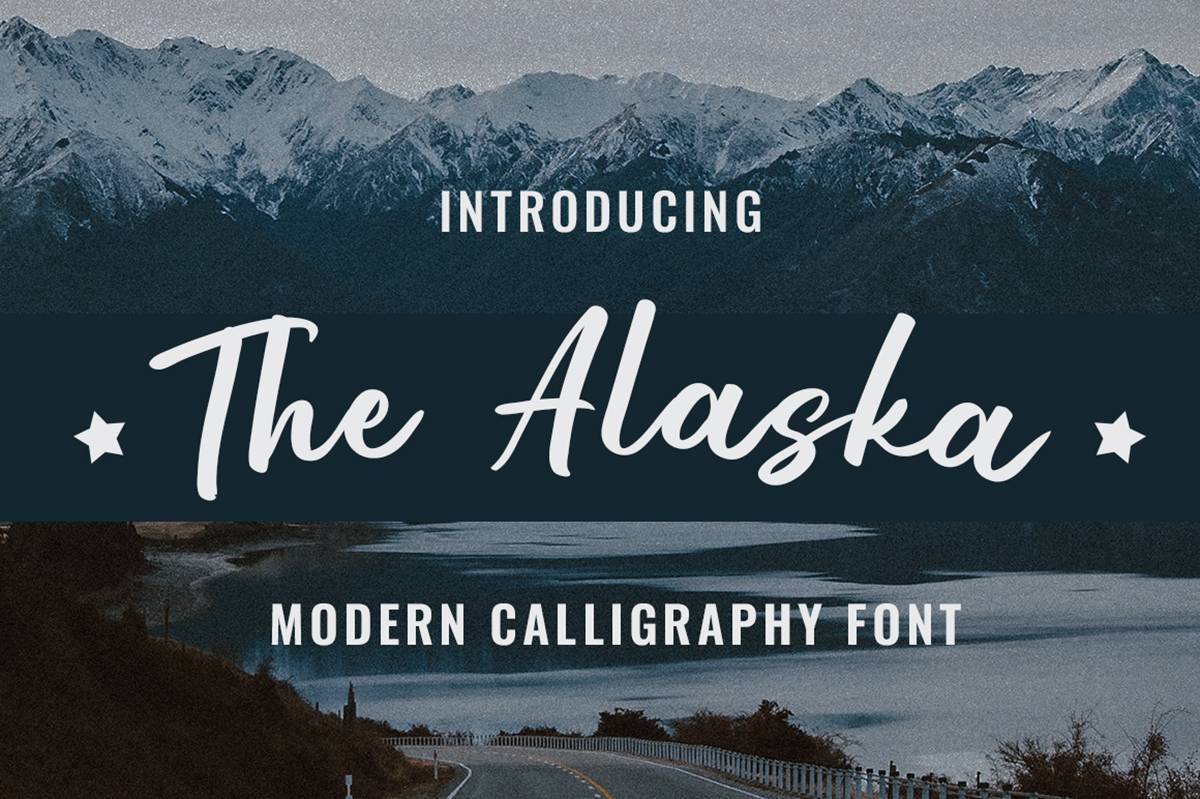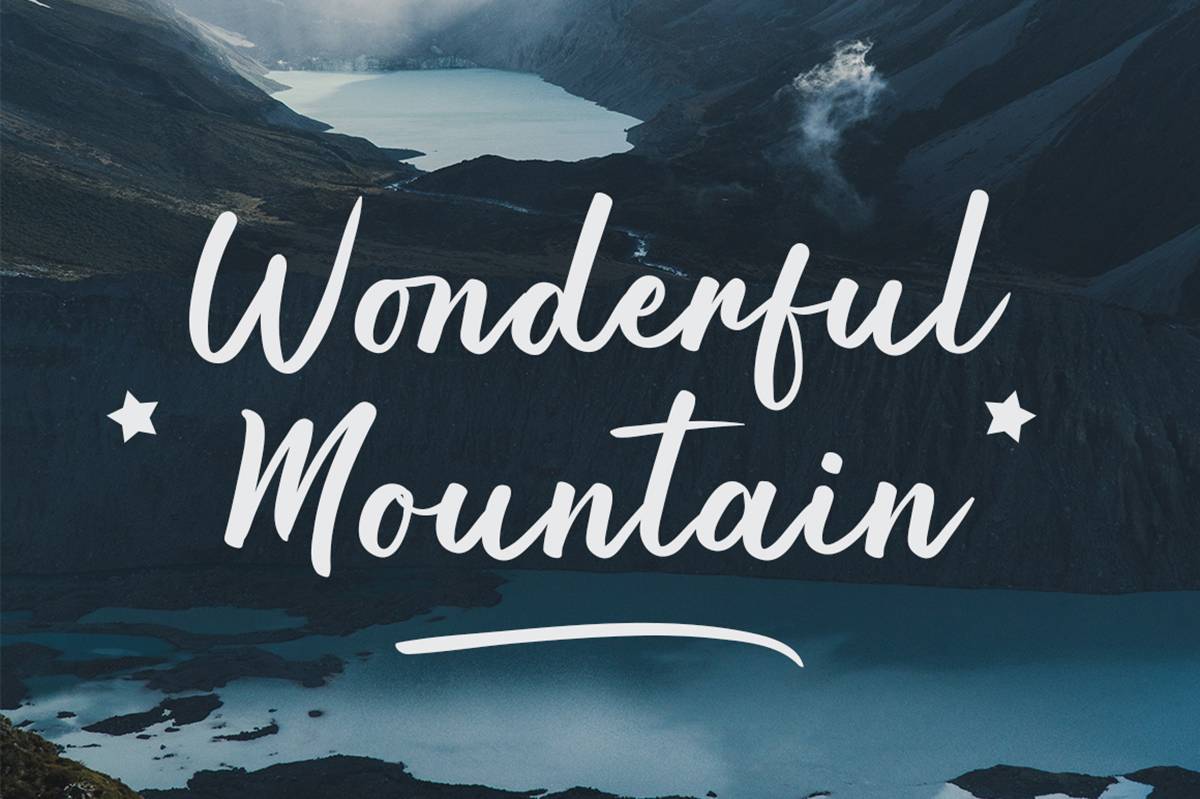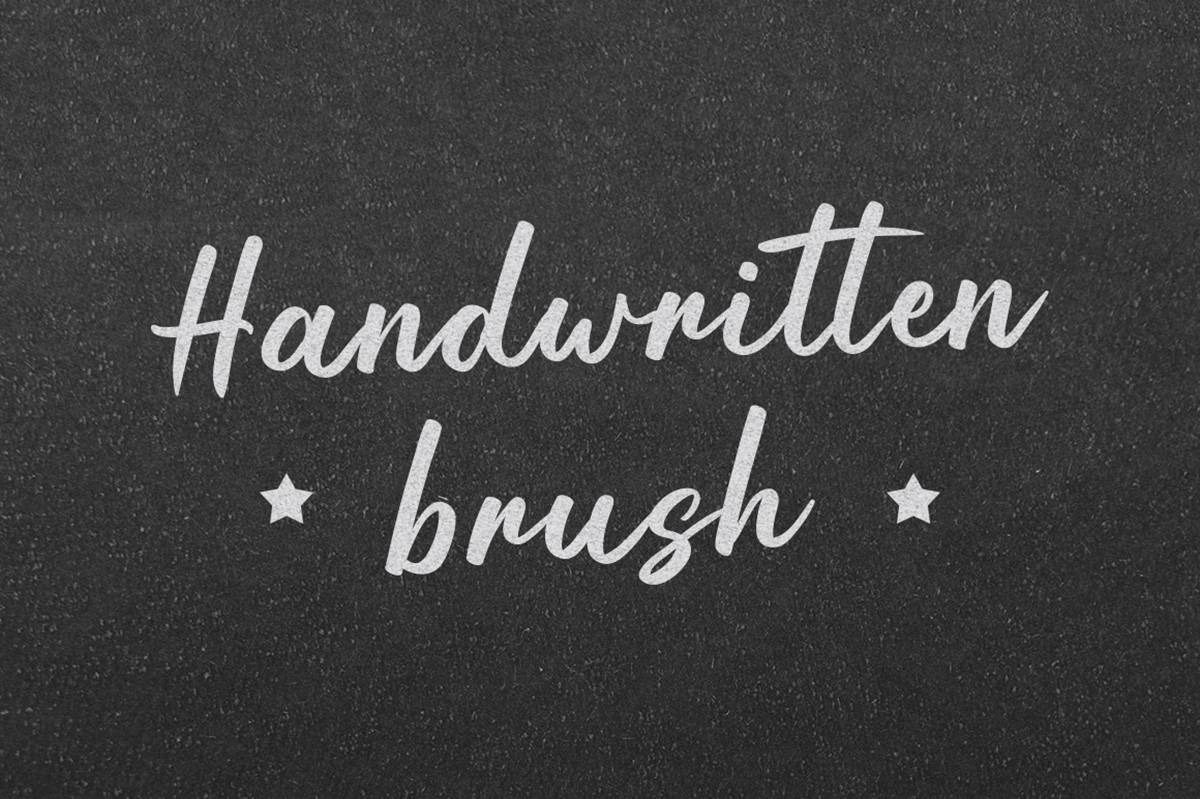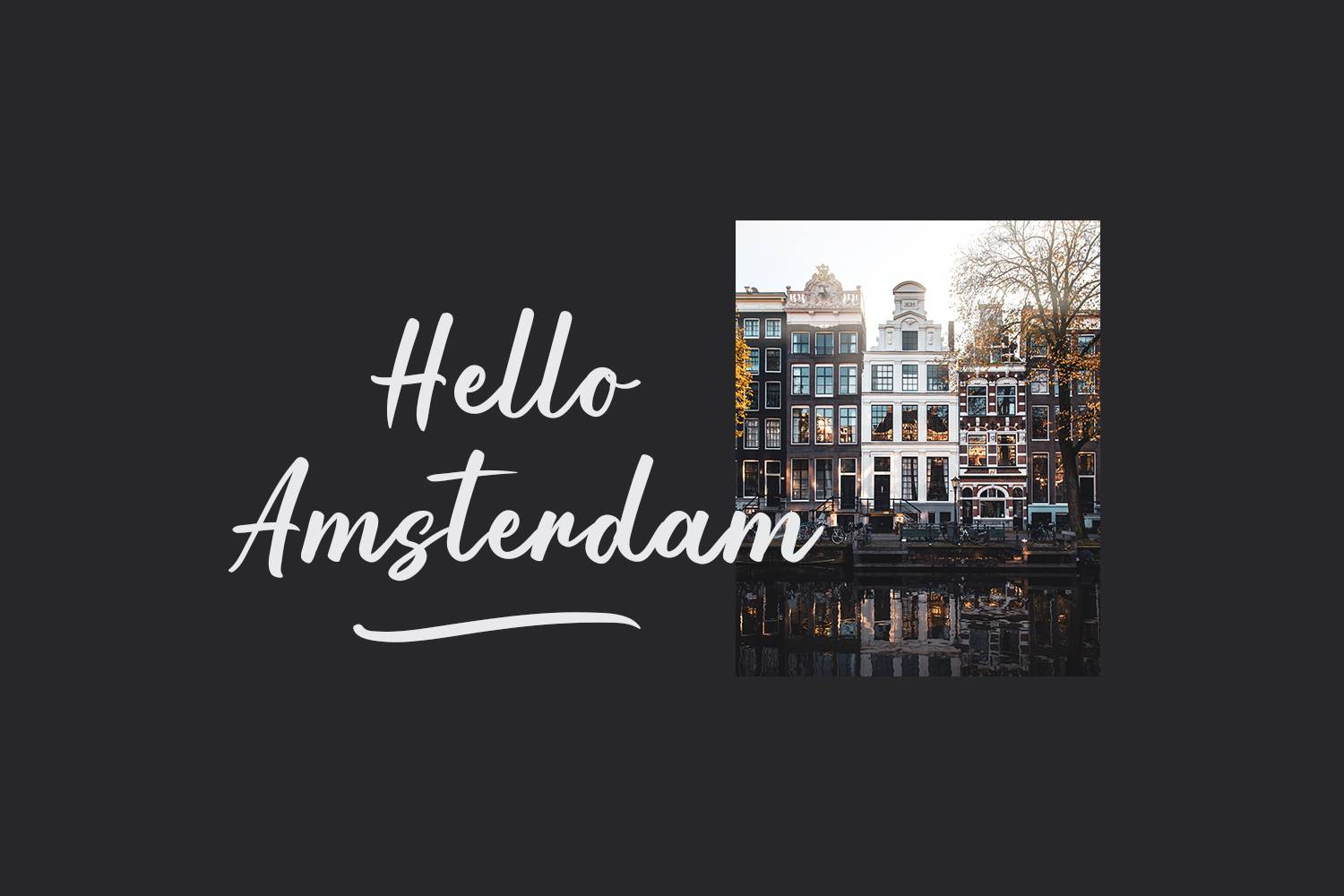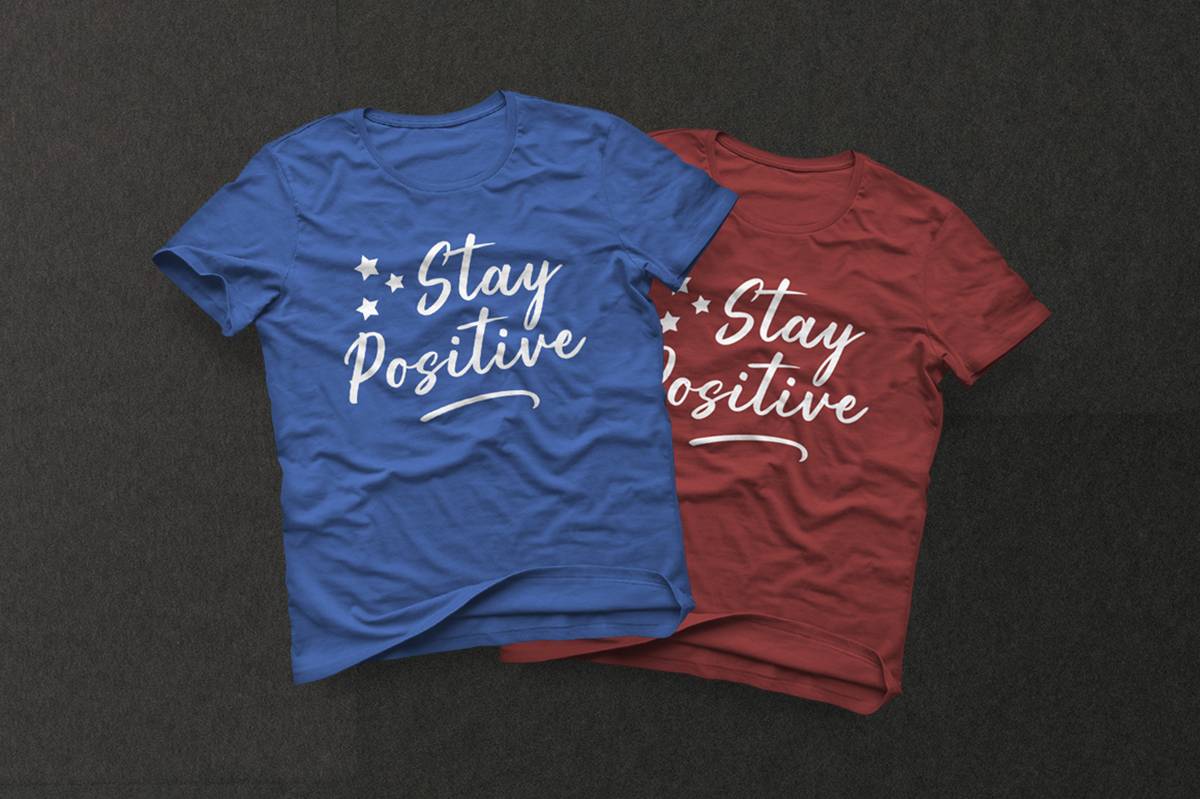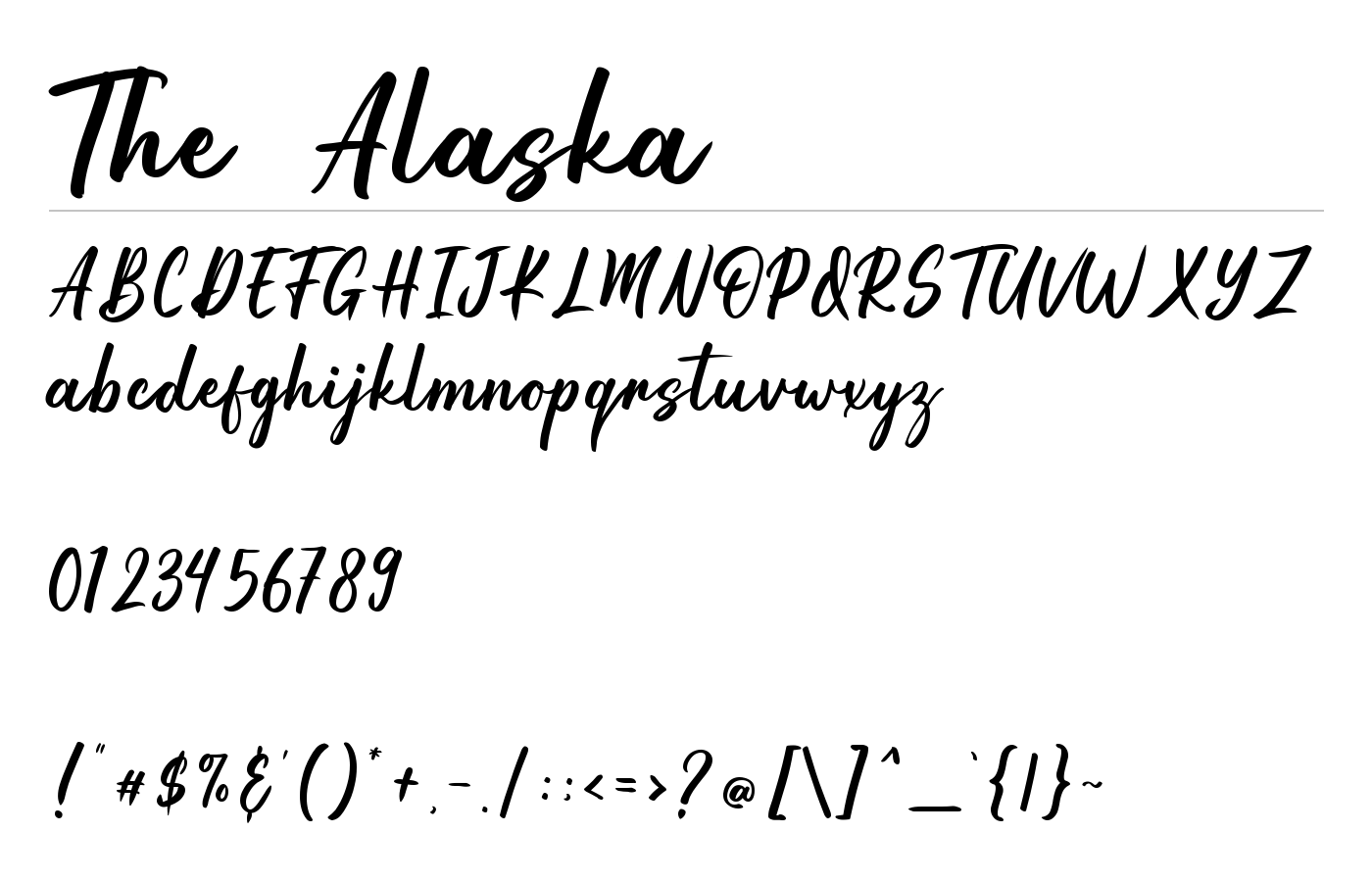
The Alaska Font is an elegant and flowing script typeface with a modern and casual feel, featuring smooth, medium-weight strokes and a natural handwritten style. Its balanced letterforms and clean, slightly condensed structure make it perfect for branding, invitations, and any design seeking a personal yet polished touch. This font works well in headlines and logos where a friendly, approachable, and stylish impression is desired.
The Alaska Font
About The Alaska Font
| Font family | The Alaska Font |